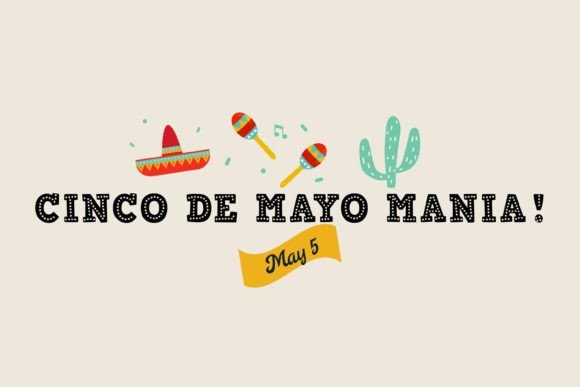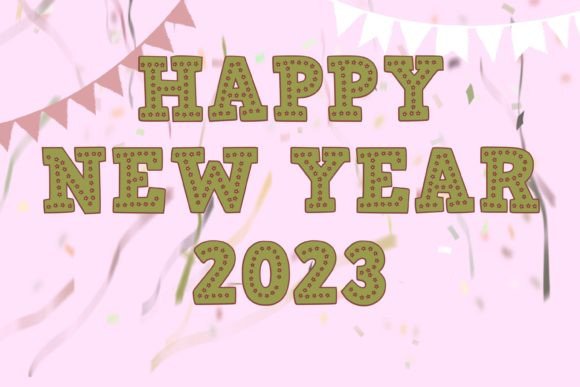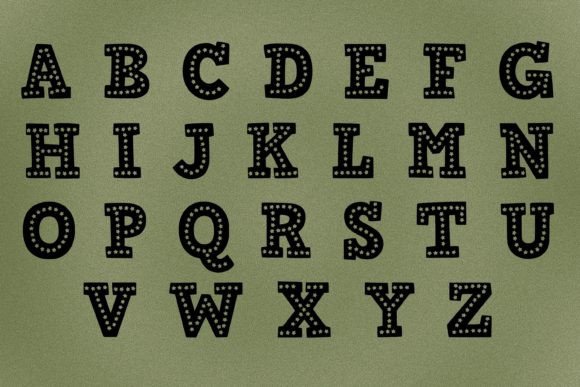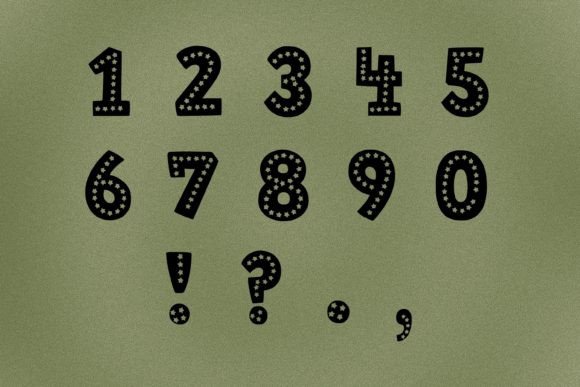
Introducing All Star Font: Elevate Your Designs with a Touch of Stardom
Are you a designer, crafter, or DIY enthusiast looking to add a dash of magic to your projects? Look no further than the All Star Font, a decorative font that shines bright with its unique star pattern on each letter. This versatile font is perfect for a wide range of creative endeavors, from card designs and t-shirt designs to posters and more. In this article, we’ll dive into the world of All Star Font, exploring its features, benefits, and uses, as well as provide tips on how to make the most of this stellar font.
The All Star Font: A Decorative Delight
The All Star Font is a one-of-a-kind decorative font that boasts a star pattern on each letter, making it a standout addition to any design project. Its playful, whimsical feel is sure to capture the attention of your audience and leave a lasting impression. Whether you’re creating greeting cards, t-shirts, posters, or any other type of visual project, the All Star Font is the perfect choice to add a touch of personality and flair.
So, what makes the All Star Font so special? Here are just a few of its key features and benefits:
- Unique Star Pattern: Each letter in the All Star Font features a beautiful star pattern, adding a touch of magic to your designs.
- Versatile: The All Star Font is perfect for a wide range of design projects, from card designs and t-shirt designs to posters and more.
- Scalable: The All Star Font is highly scalable, making it perfect for use in both small and large design projects.
Uses for the All Star Font
The All Star Font is an incredibly versatile font that can be used in a wide range of design projects, including:
- Card Designs: Add a touch of stardom to your greeting cards, invitations, and other paper crafts with the All Star Font.
- T-Shirt Designs: Create eye-catching t-shirt designs that are sure to turn heads with the All Star Font.
- Posters: Use the All Star Font to create bold, attention-grabbing posters that showcase your message or brand.
- DIY Projects: Add a personal touch to your DIY projects, such as scrapbook pages, journal entries, and more, with the All Star Font.
Tips for Using the All Star Font
To make the most of the All Star Font, here are a few tips to keep in mind:
- Experiment with Colors: Try pairing the All Star Font with different colors and textures to create unique and eye-catching designs.
- Mix and Match: Combine the All Star Font with other fonts and design elements to create visually interesting and dynamic designs.
- Keep it Simple: Don’t be afraid to keep things simple and use the All Star Font on its own to create a bold, statement-making design.
In conclusion, the All Star Font is a decorative font that’s sure to elevate your designs and add a touch of stardom to your projects. With its unique star pattern, versatility, and ease of use, it’s the perfect choice for designers, crafters, and DIY enthusiasts of all levels. Whether you’re creating card designs, t-shirt designs, posters, or any other type of visual project, the All Star Font is sure to make your artwork look outstanding. So why wait? Download the All Star Font today and start shining bright with your designs!